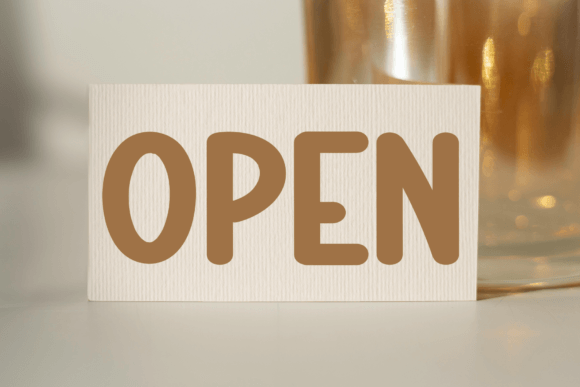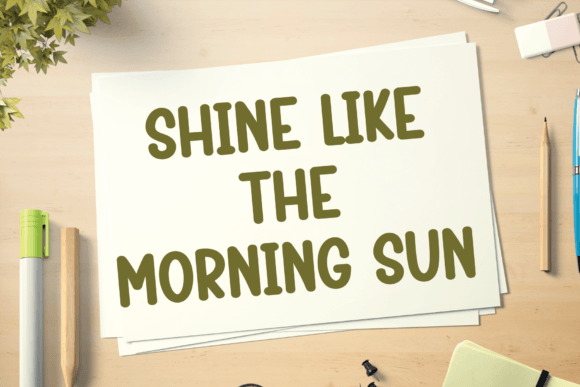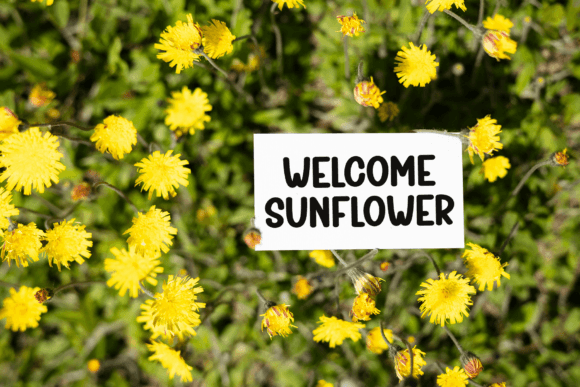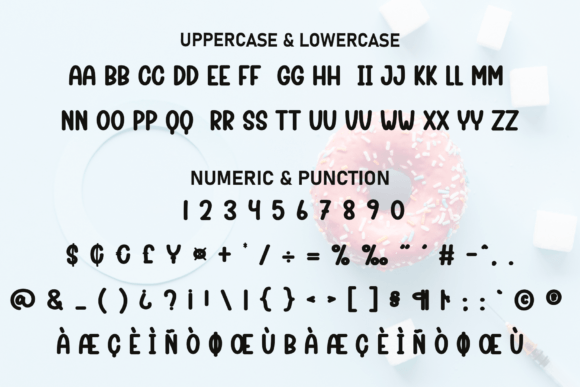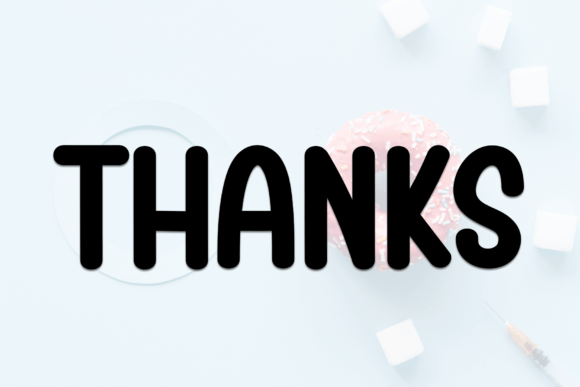
Introducing Donut Font: The Sweetest Addition to Your Design Collection
Are you on the hunt for a font that adds a touch of elegance and whimsy to your designs? Look no further than Donut Font, a beautiful handwritten font that is sure to capture your heart. With its unique blend of sophistication and playfulness, Donut Font is the perfect choice for designers and crafters looking to add a little something special to their projects.
The Charm of Donut Font
Donut Font is a neat and beautiful handwritten font that boasts an elegant touch, making it perfect for a wide range of projects. From branding and packaging to invitations and social media graphics, this font is sure to make your designs stand out from the crowd. Its incredibly distinct and timeless style is sure to fall in love with, and its versatility makes it a valuable addition to any design collection.
What Makes Donut Font So Special?
So, what sets Donut Font apart from other fonts on the market? Here are just a few of its standout features:
- Handwritten with love: Donut Font is a carefully crafted handwritten font that is full of personality and charm. Each letter has been lovingly written to create a truly unique and eye-catching effect.
- Elegant and refined: Despite its playful nature, Donut Font has an undeniable air of sophistication that makes it perfect for more formal projects. Whether you’re designing a wedding invitation or a luxury brand logo, this font has got you covered.
- Timeless style: Unlike trendy fonts that quickly go out of style, Donut Font has a timeless quality that ensures it will remain relevant for years to come. Its classic charm and effortless elegance make it a valuable addition to any design collection.
Donut Font is a dream come true for designers and crafters who are looking for a font that can help them create spectacular designs. Whether you’re working on a client project or a personal craft, this font is sure to inspire your creativity and bring your ideas to life.
Here are just a few ways you can use Donut Font to take your designs to the next level:
- Branding and packaging: Use Donut Font to create eye-catching logos, labels, and packaging that sets your brand apart from the competition.
- Invitations and stationery: Add a touch of elegance and whimsy to your invitations, greeting cards, and other stationery with Donut Font.
- Social media graphics: Use Donut Font to create stunning social media graphics that showcase your brand’s personality and style.
In conclusion, Donut Font is a beautiful and versatile handwritten font that is sure to capture your heart. With its elegant touch, timeless style, and playful charm, it’s the perfect choice for designers and crafters looking to add a little something special to their projects. So why wait? Download Donut Font today and start creating spectacular designs that showcase your creativity and style!